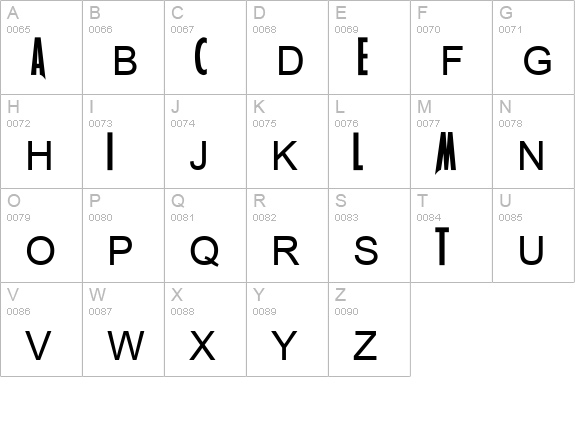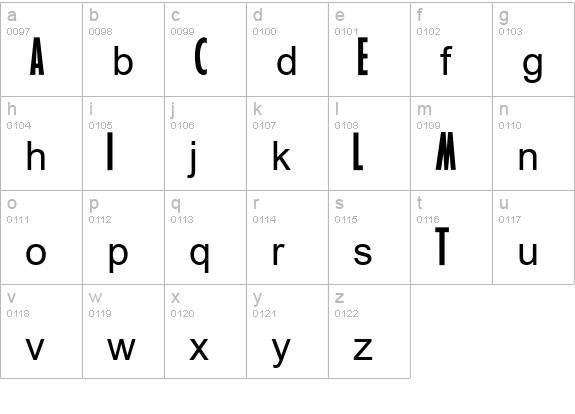
MetallicA NEW Font Details
Introducing MetallicA NEW font, a bold and modern typeface that exudes strength and sophistication. This font features sleek metallic-inspired letterforms that are perfect for making a bold statement in your designs. With its sharp edges and clean lines, MetallicA NEW font is ideal for branding, logos, posters, and more. What's even better is that MetallicA NEW font is available for free download at FontsMarket.com. Now you can add a touch of metallic flair to your projects without breaking the bank. Don't miss out on this unique and eye-catching font that will surely make your designs shine. Download MetallicA NEW font today and take your creations to the next level!